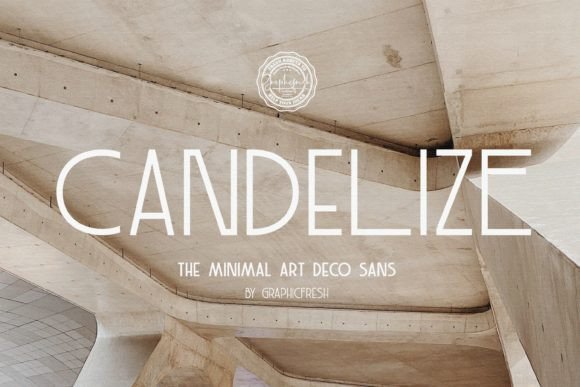
Prepare yourself to be mesmerized by Candelize Font, the epitome of elegance and sophistication in the world of typography. This modern sans serif font family, brought to life by the creative genius of Graphicfresh, possesses an aura of timeless allure that will elevate your designs to unprecedented heights.
Unleash your creativity and embark on a journey of visual brilliance with Candelize. Its meticulously crafted letterforms, inspired by the iconic Art Deco movement, exude an air of sophistication that will captivate your audience. Whether you're crafting sleek editorial layouts or designing logos that demand attention, Candelize Font is your perfect companion.
With Candelize, you have the power to transform ordinary text into captivating masterpieces. Its clean lines and elegant curves create a visual spectacle that commands attention. Whether you're a seasoned designer or just starting your creative journey, Candelize Font will empower you to make a lasting impression.
Imagine your designs adorned with the splendor of Candelize Font. Your logos will radiate an aura of prestige, your editorial layouts will captivate readers, and your branding will exude an air of timeless elegance. With Candelize as your creative ally, the possibilities are endless.
So, immerse yourself in the world of Candelize Font today and witness the magical transformation of your designs. Let the beauty of its letterforms ignite your imagination and inspire you to create visual masterpieces that will leave a lasting impression.